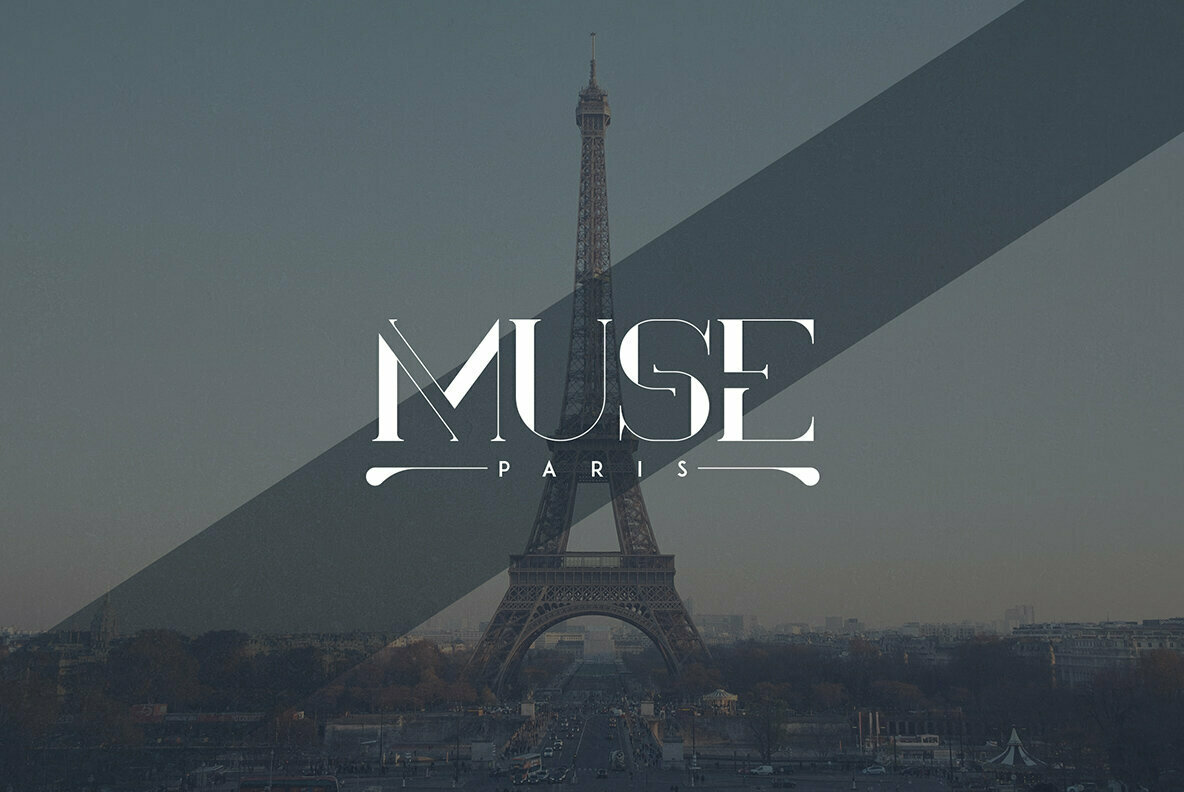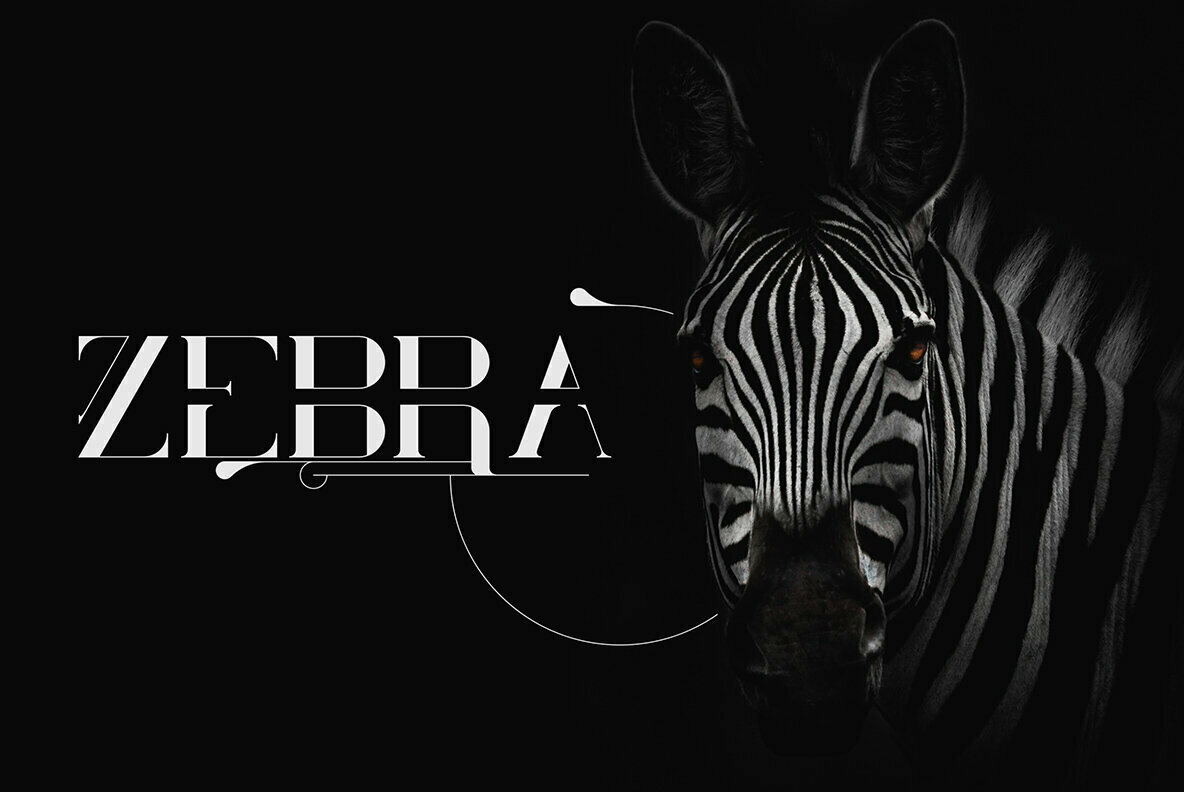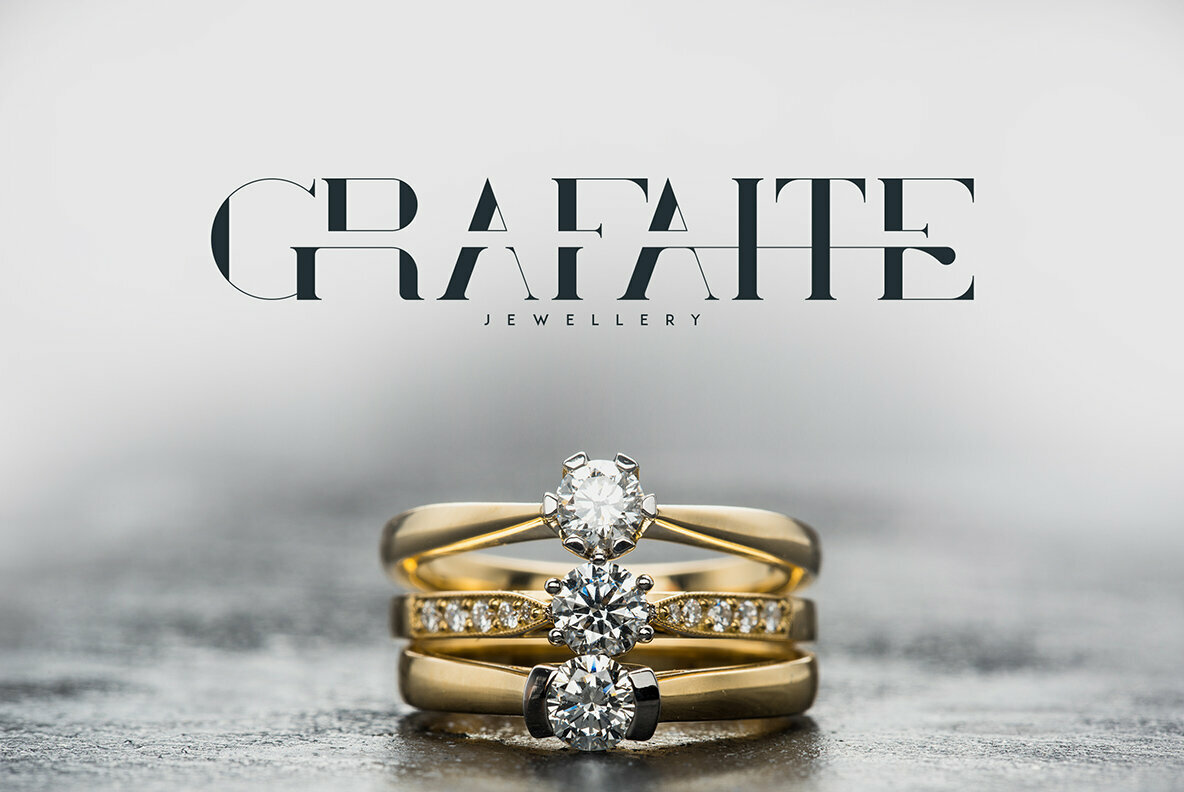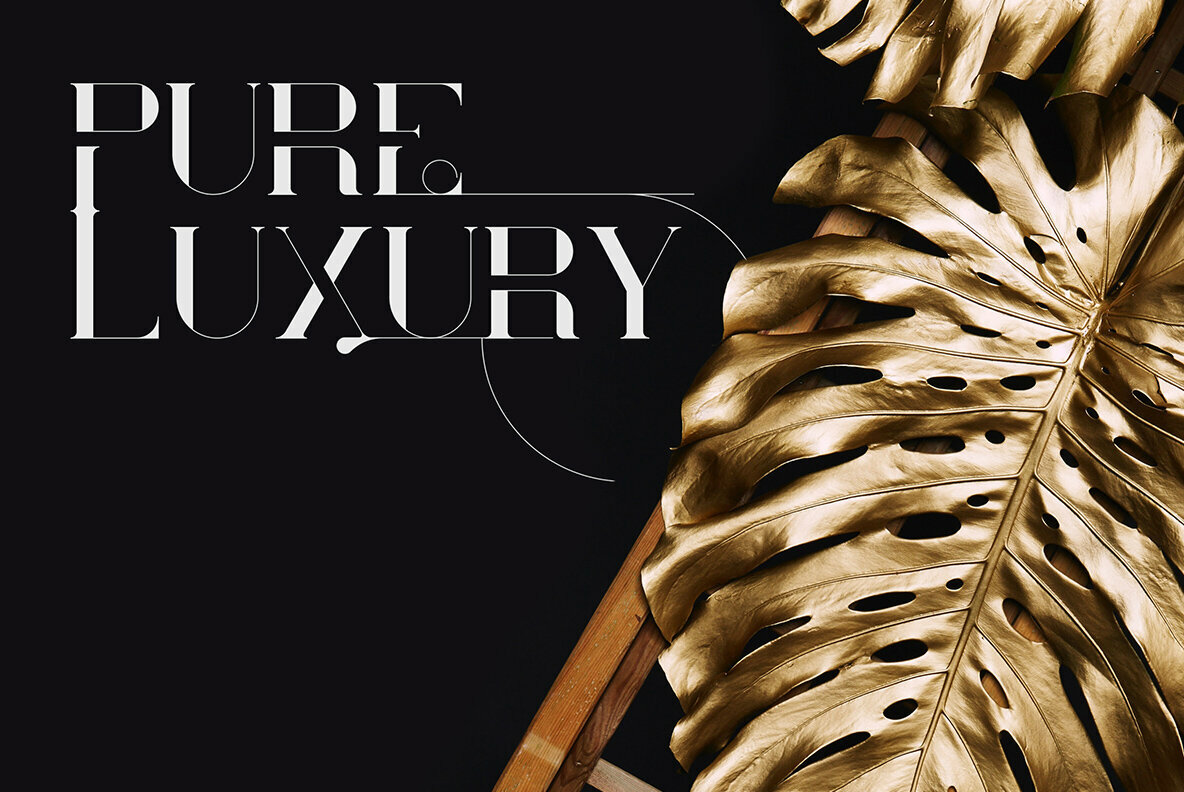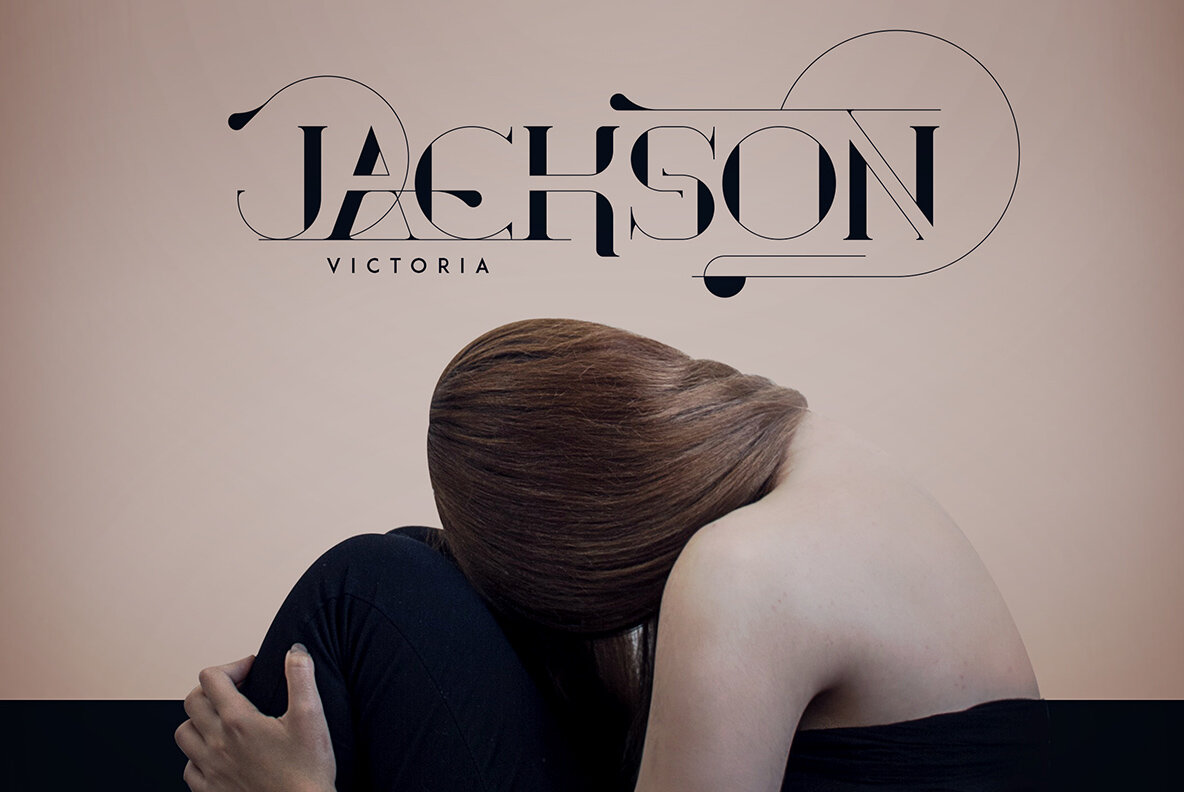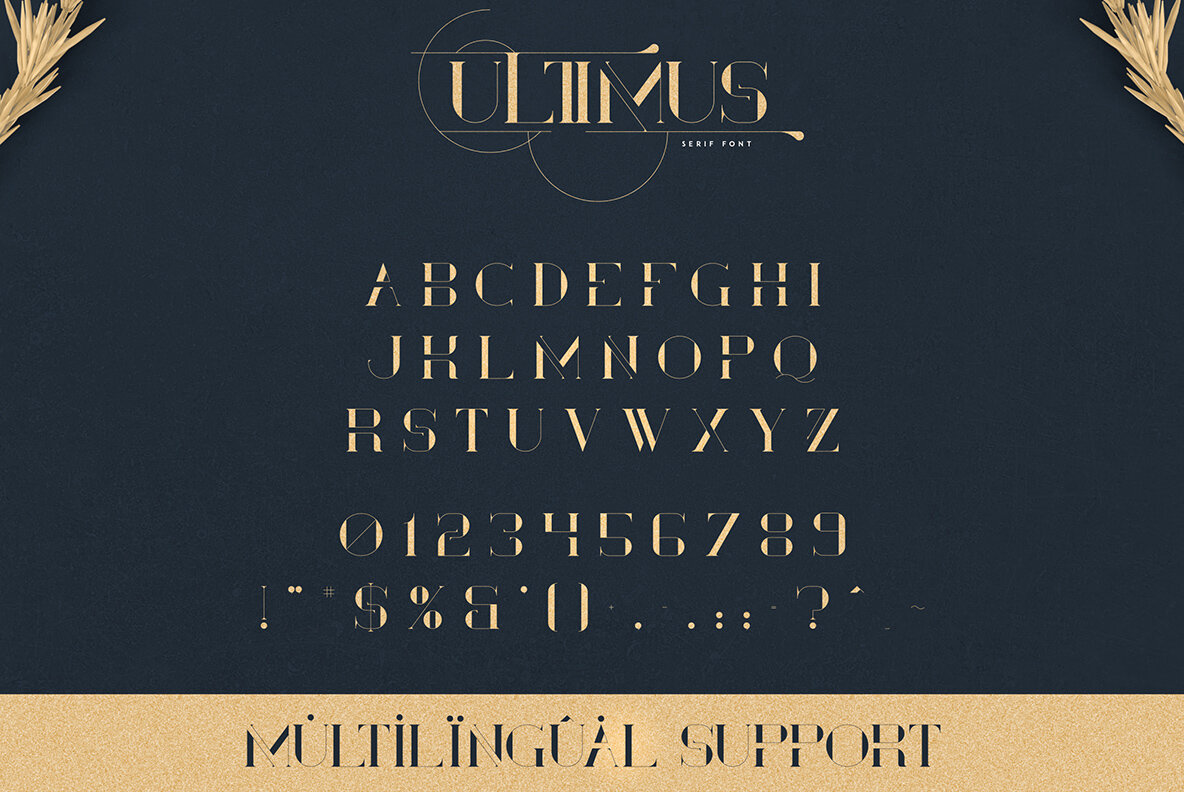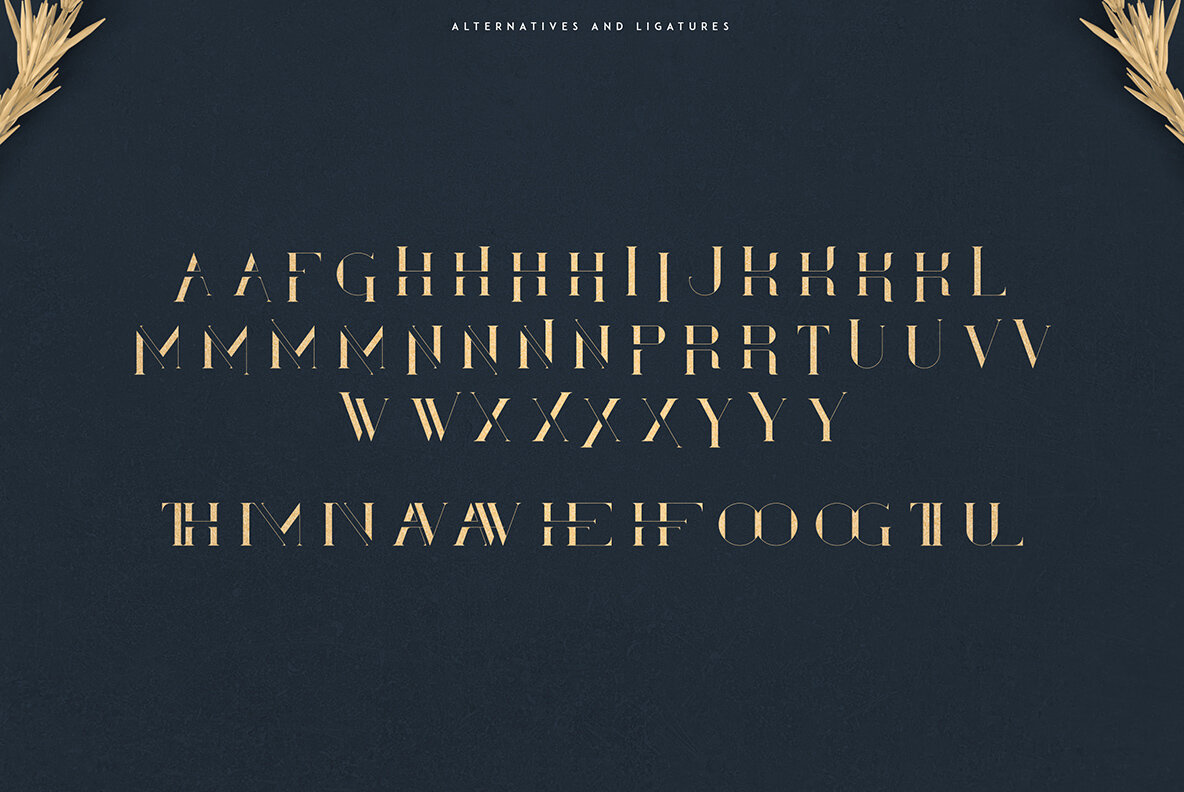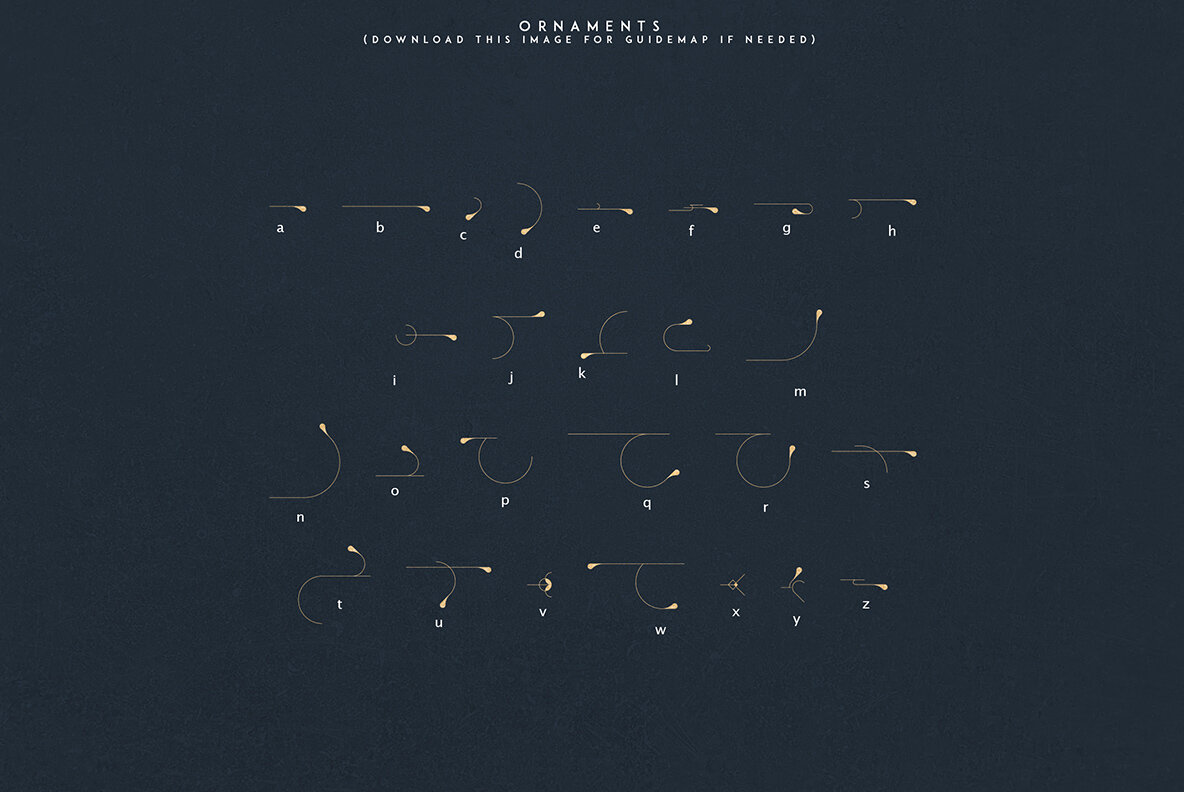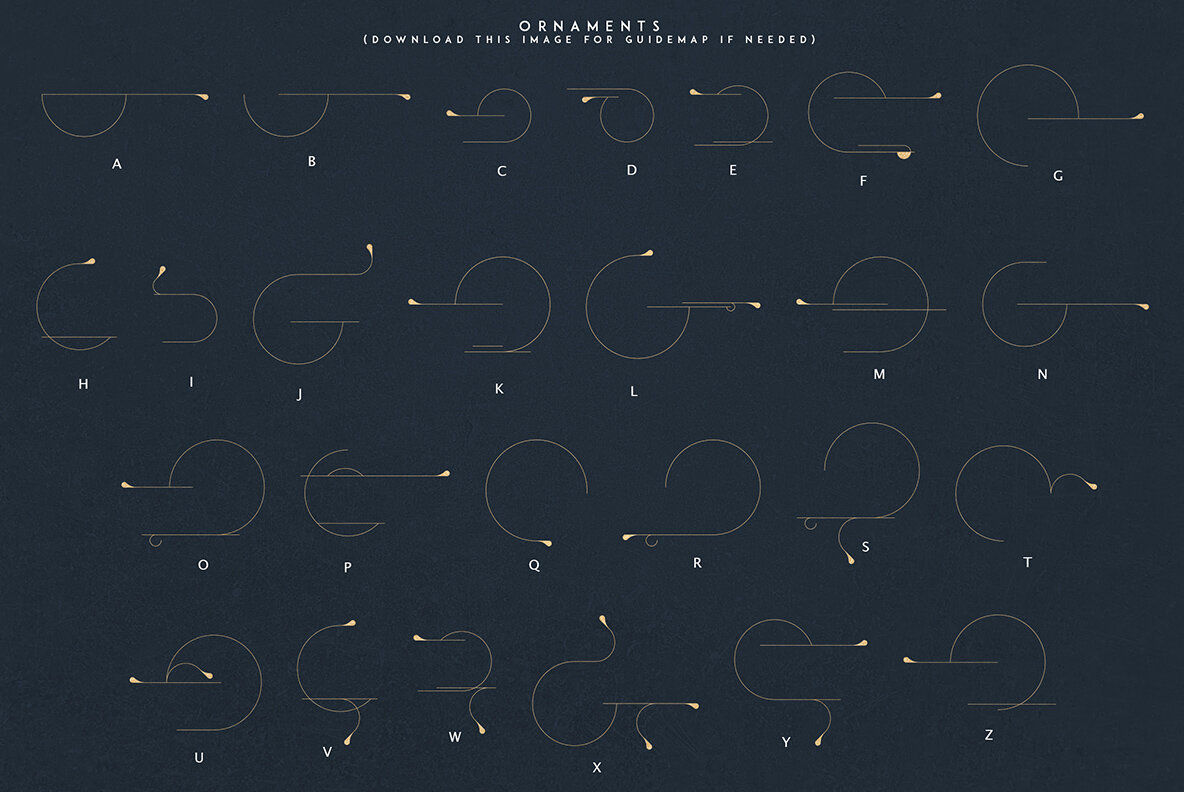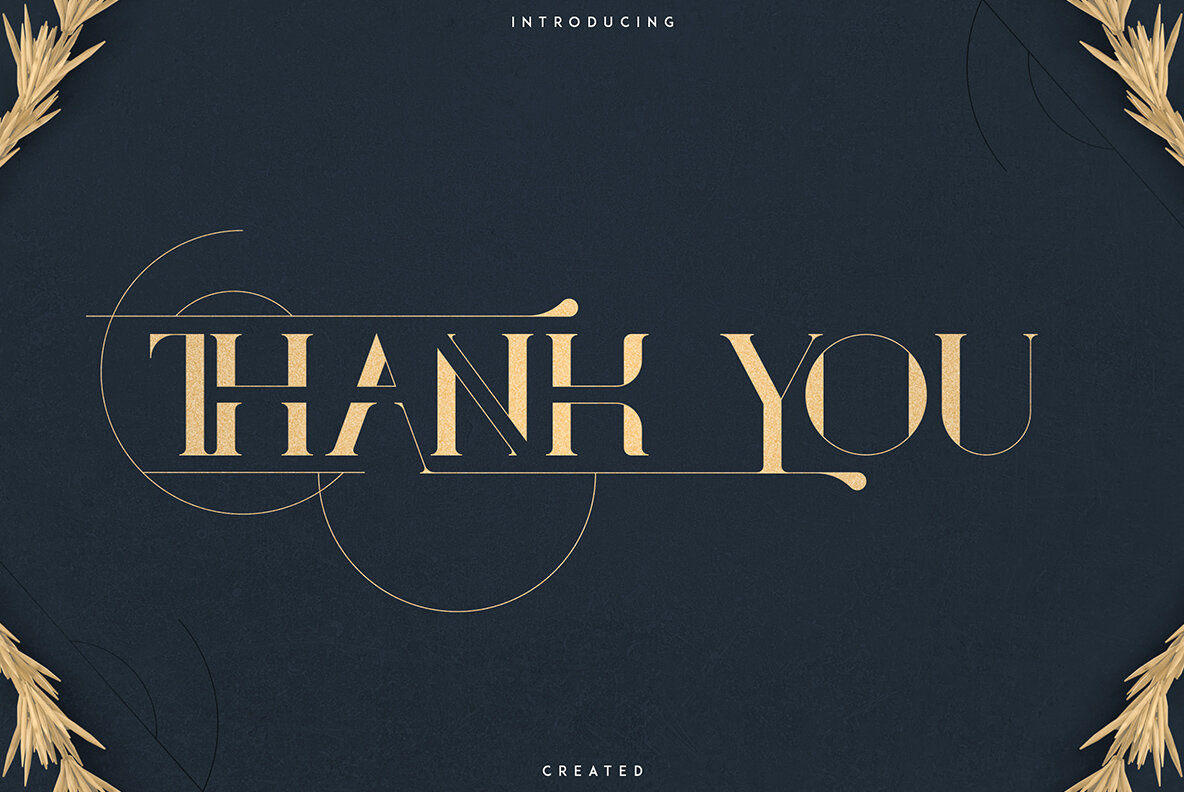
Ultimus Font
Discover the refined elegance of the Ultimus serif font, designed to bring sophistication to any project. With a range of features such as 52 distinctive ornaments, alternative and ligature glyphs, and robust multilingual support, Ultimus presents a clean aesthetic that adapts effortlessly to both large and small sizes. Perfect for an array of applications, Ultimus is ideal for branding projects, home-ware designs, magazine headers, and product packaging. Its stylistic versatility also makes it an excellent choice for creating captivating text overlays against any backdrop.Ultimus: Elegant Serif Font with Versatility and Style